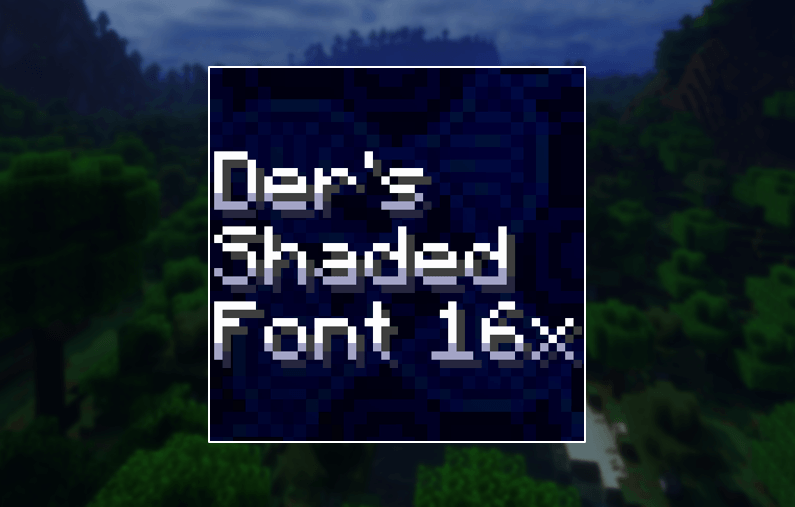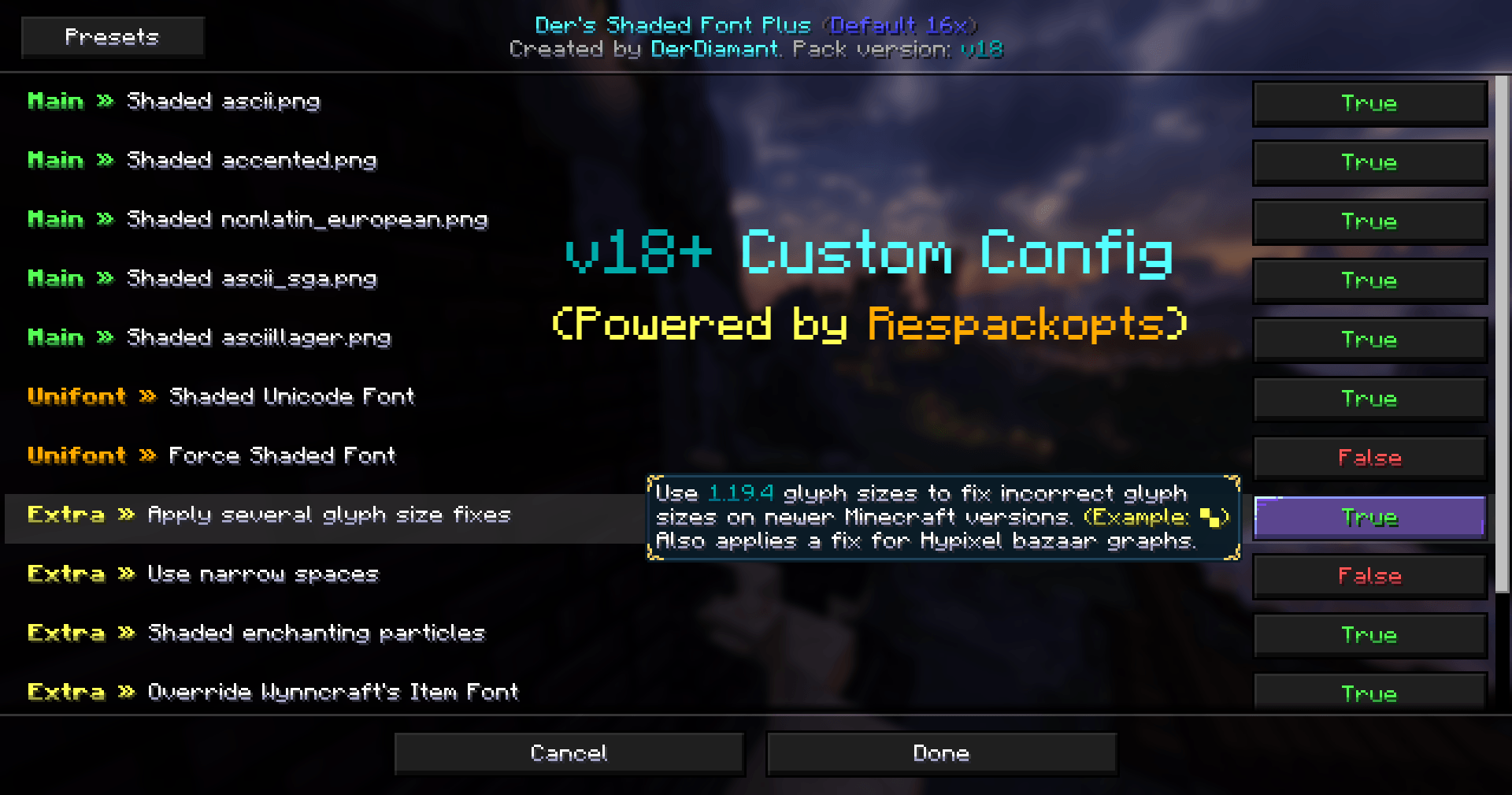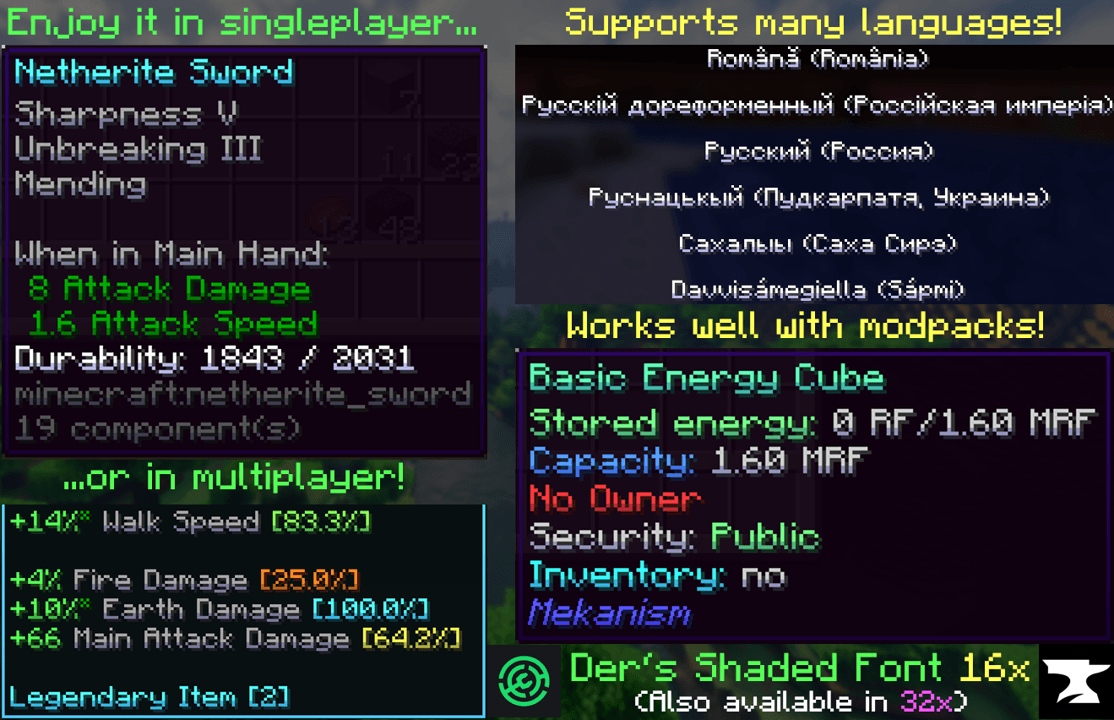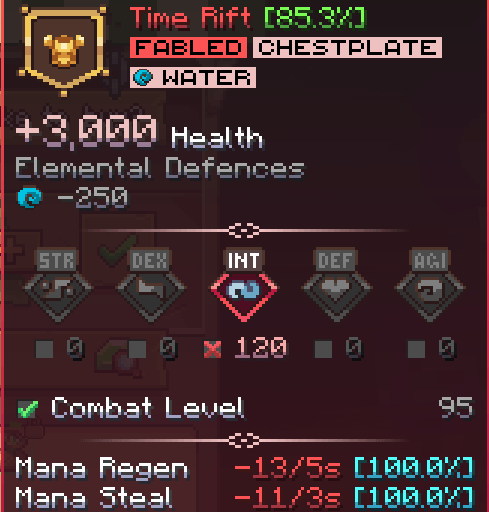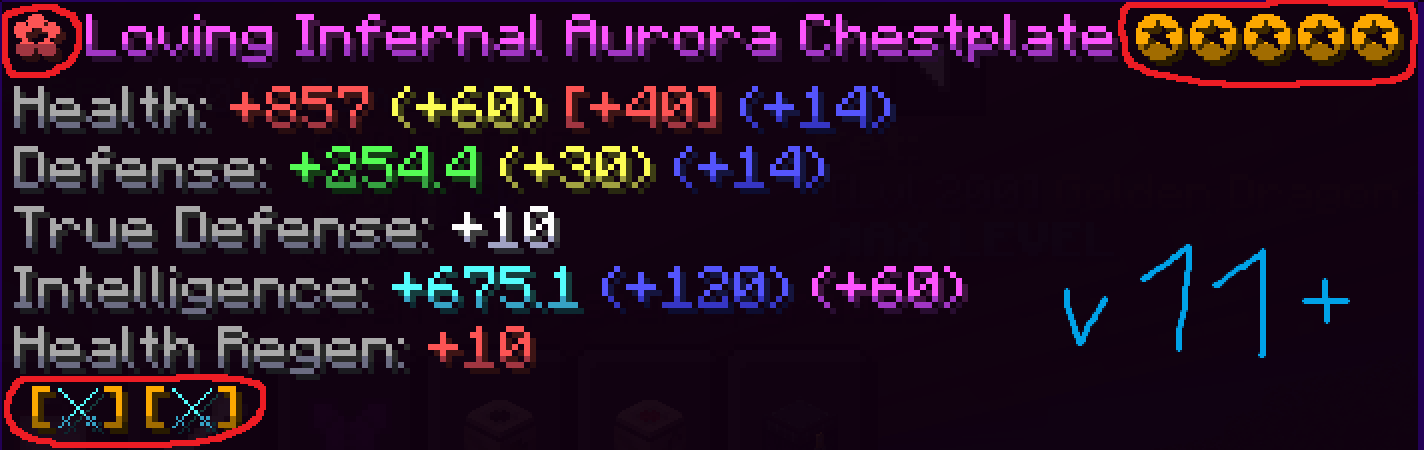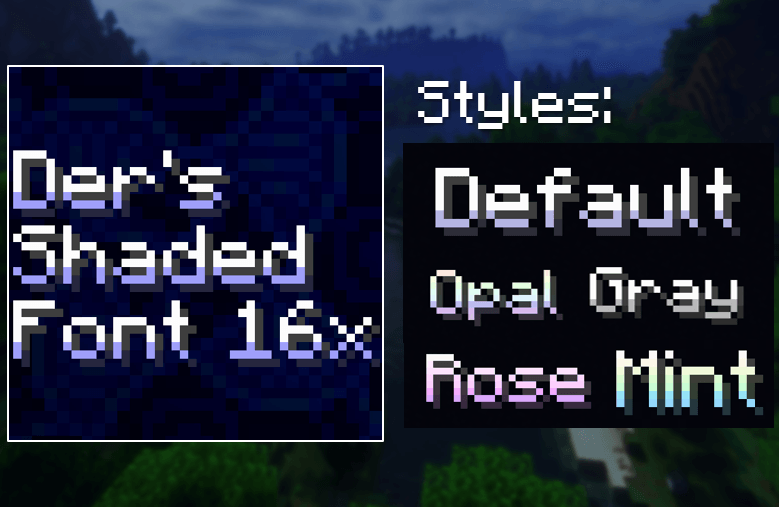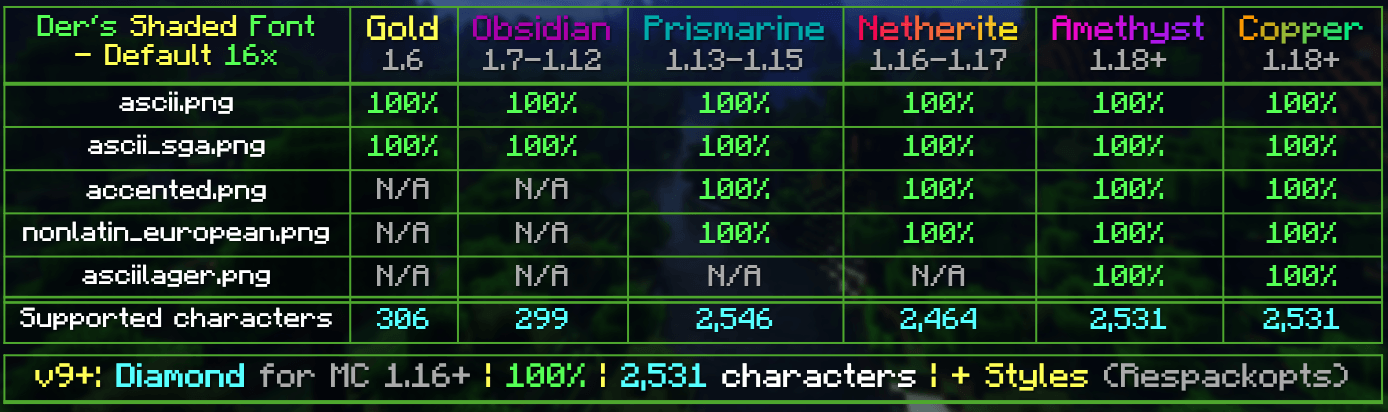
Der's Shaded Font Plus (Default 16x)
10'000+ Shaded Glyphs | Config | Hypixel, Wynncraft & Modded Support | Languages | Tweaks | The most advanced default shaded font | MC 1.6.1-26.3+
Overriding Wynncraft's tooltip font
Symbols support!
This resourcepack simply modifies Minecraft's Font by adding targeted colored shading to the lower parts of its characters, giving the game a more refreshing/visually appealing look! Supports 10,000+ characters, various languages, many symbols and is available for a wide range of game versions!
v18+ has custom configs, letting you toggle absolutely anything, including new experimental features, powered by Respackopts (optional). Without it, default settings will be applied which mimic v17 and contain tweaks from v18+.
All of Minecraft's font is currently supported and shaded*, consisting of:
Beyond that, the latest releases also added:
• 8,000+ shaded glyphs across 36 unicode pages*
• Extensive language & symbol support*
• Corresponding font provider files allowing for individual tweaks*
• Extra options for narrow spacing, forced shaded font & mod guide book support
• Support for Wynncraft (item tooltip font*)
• Support for Hypixel (used unicode*, bazaar graph fix & revert text color changes)
• Config option to apply legacy shading
Q4: Why do a few specific glyphs/symbols have no shading?
A4: For affected unicode glyphs (also see Q5), editing those with a resourcepack causes a visual double-struck issue under certain circumstances, so shading for those has been removed in v14-16+, fixing that issue. For some other symbols it has been a design choice to improve readability. Lastly, custom icons of popular servers will not be supported due to their licensing.
Q5: What languages are not supported?
A5: Chinese, Japanese, Kannada & Korean currently have no shaded glyphs. This is due to the double-struck issue mentioned above. All other languages not listed here have shaded glyphs!